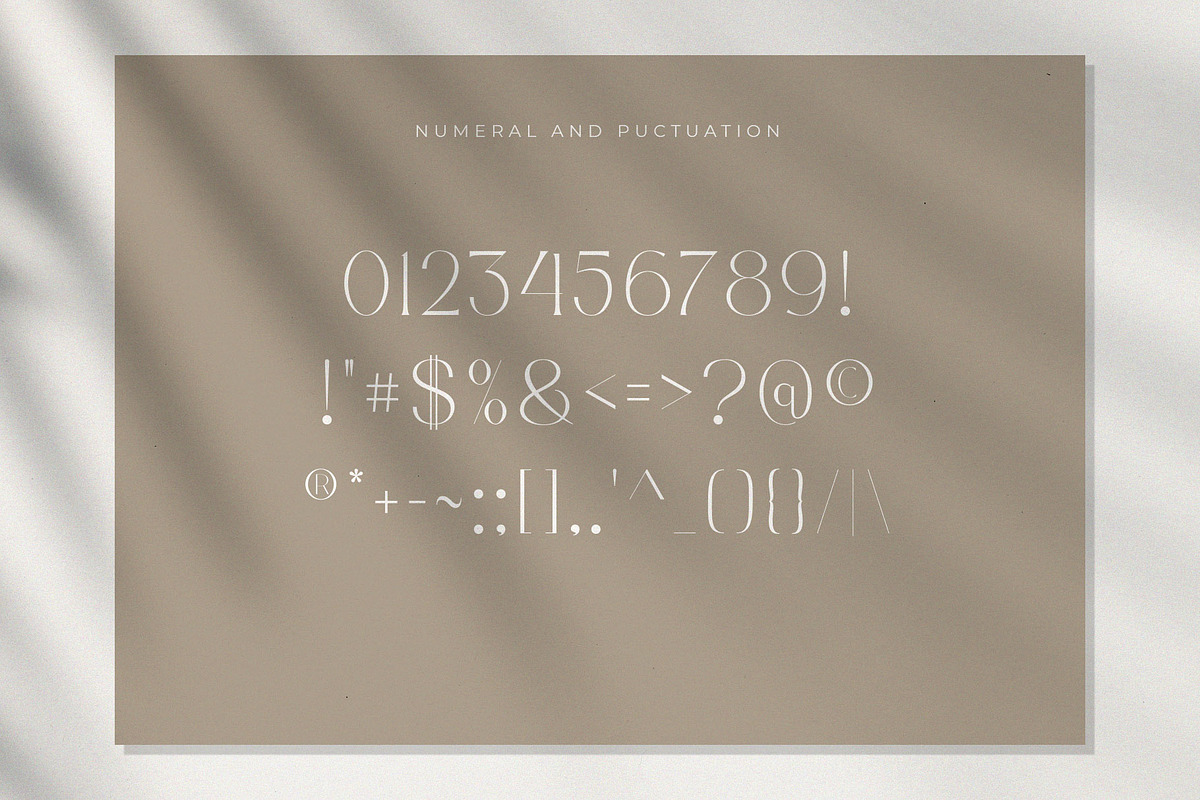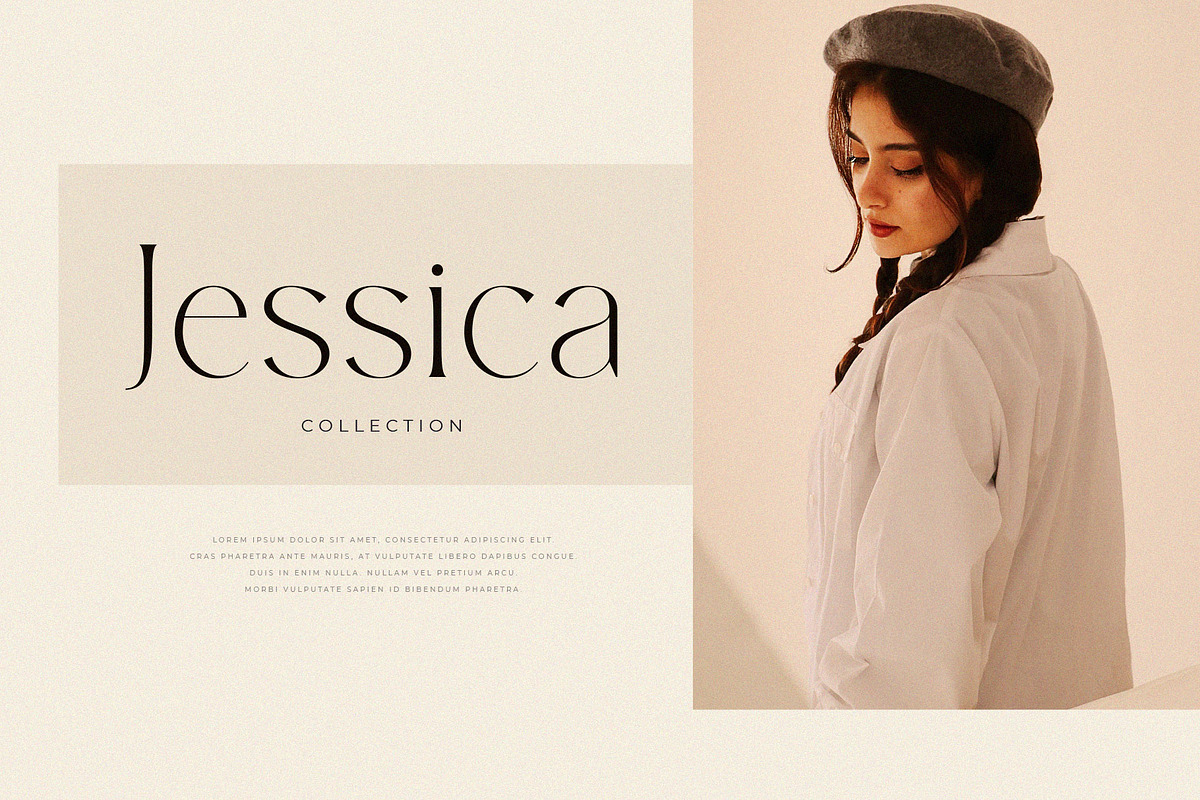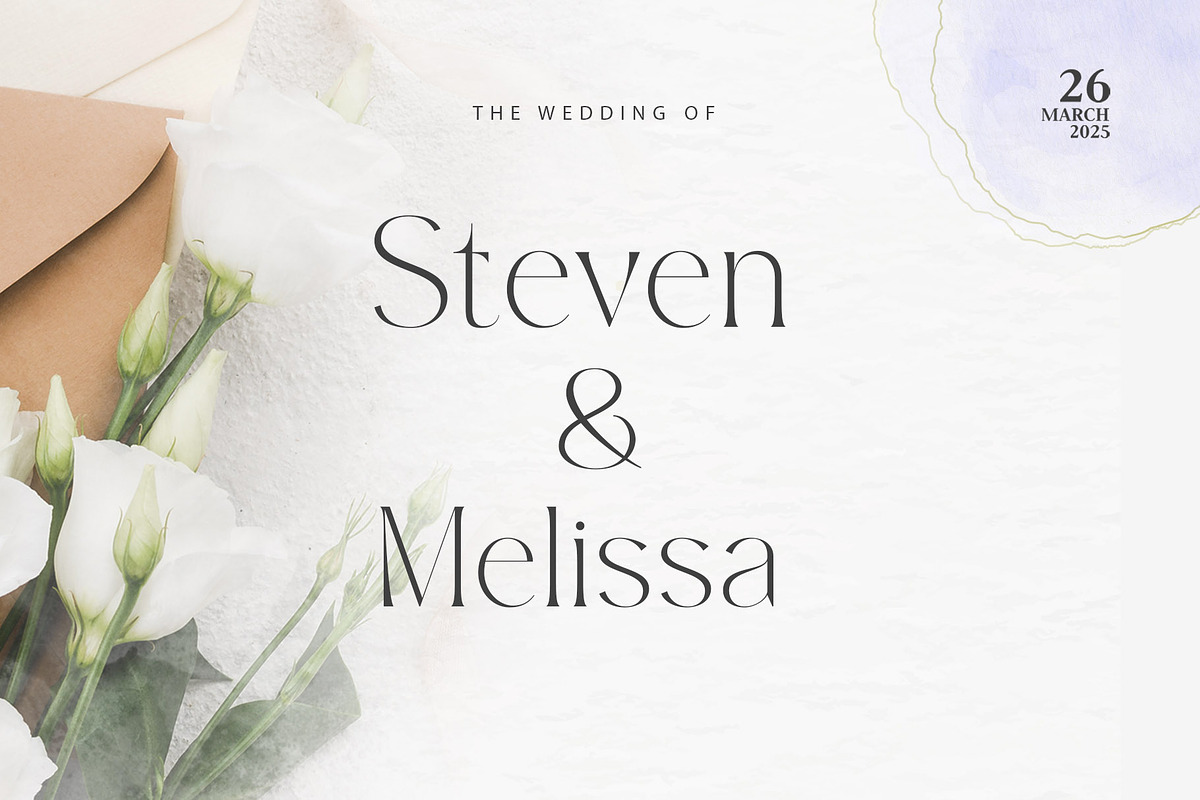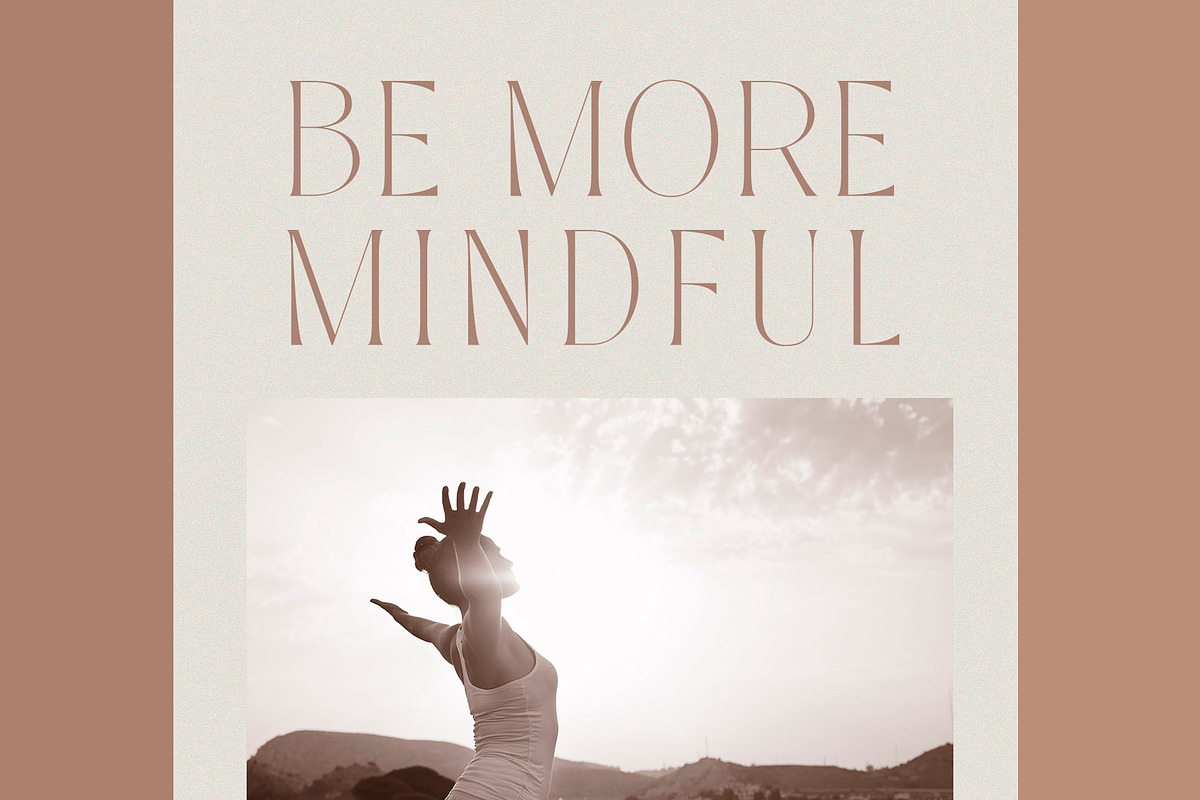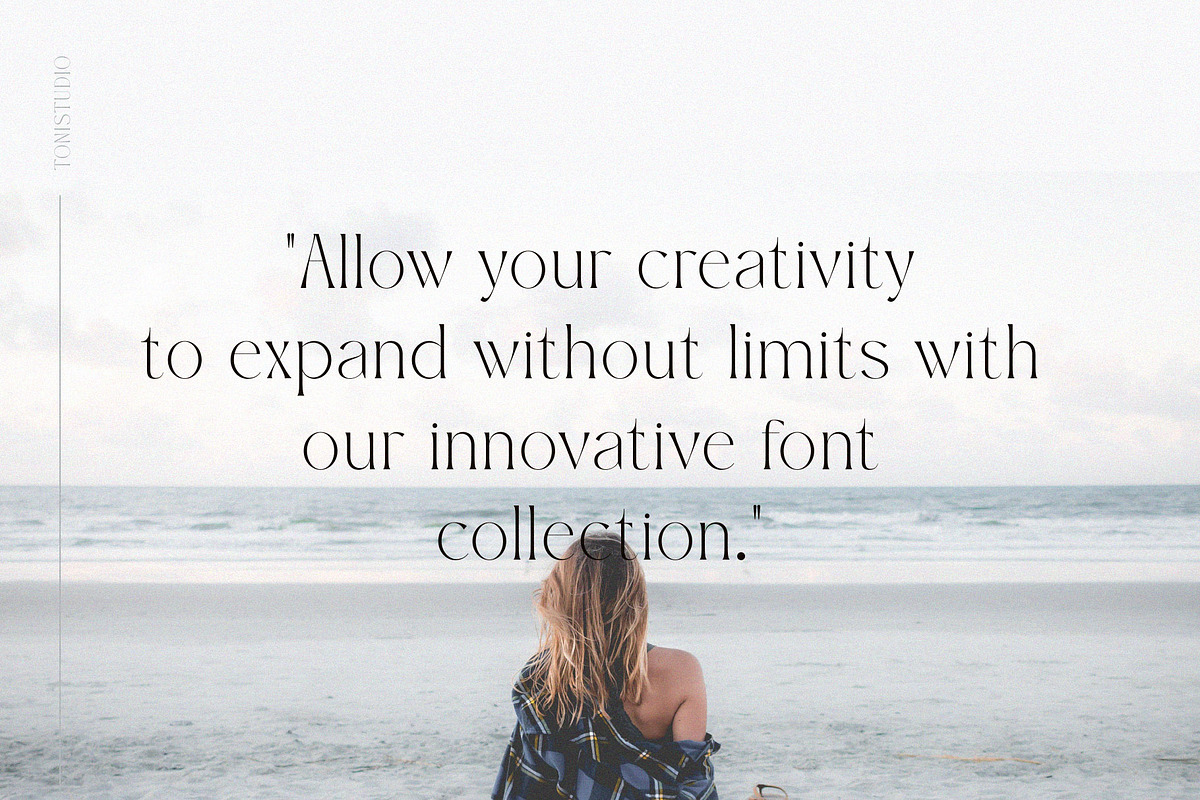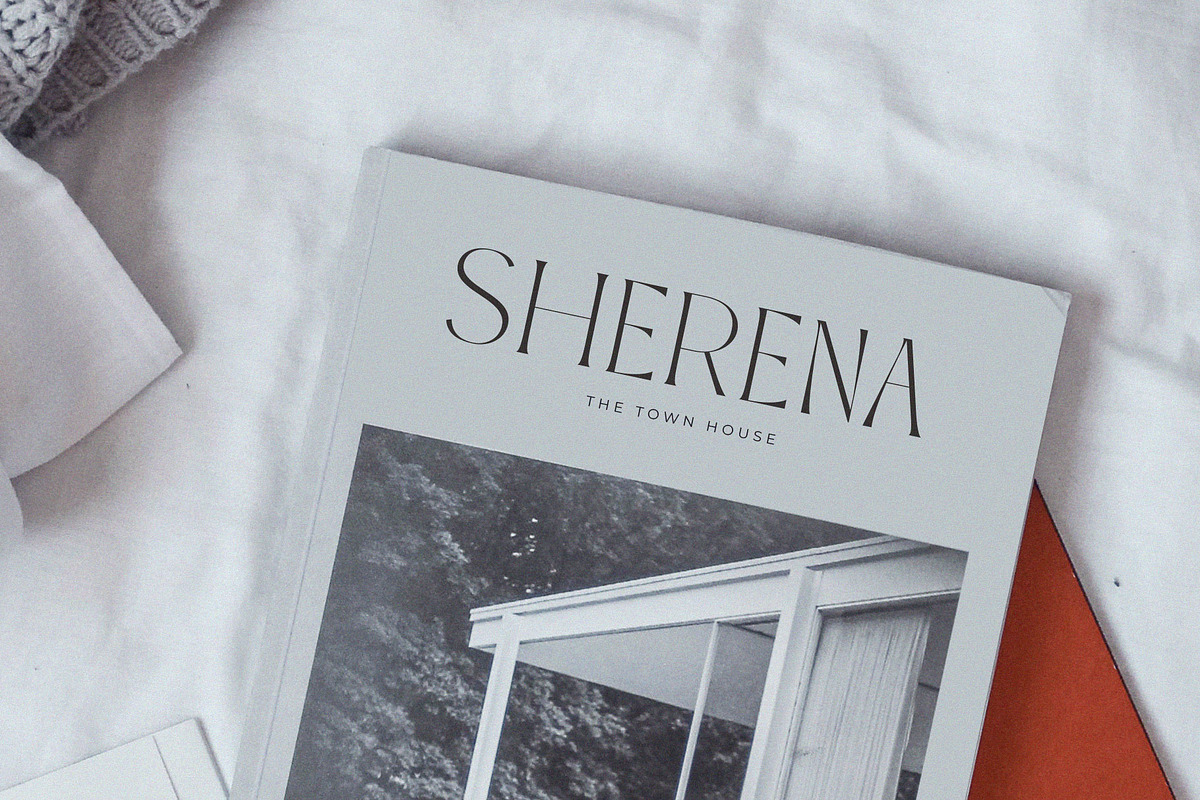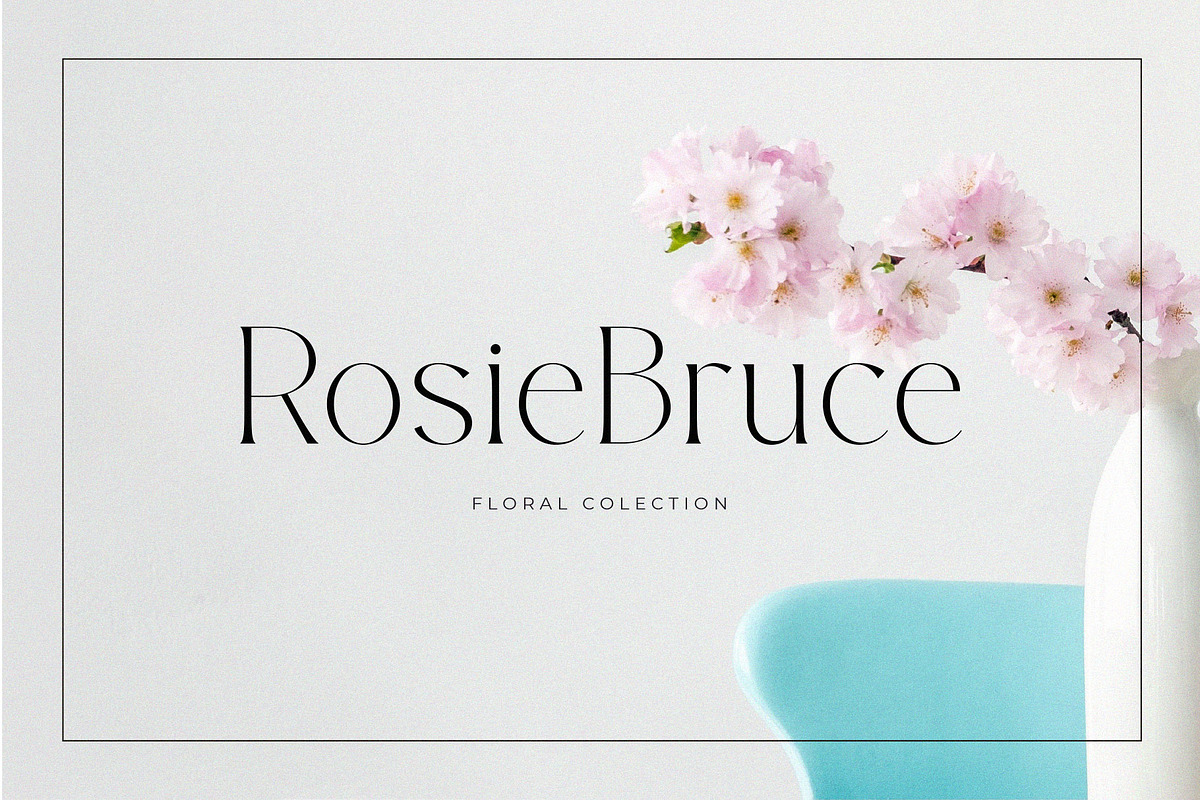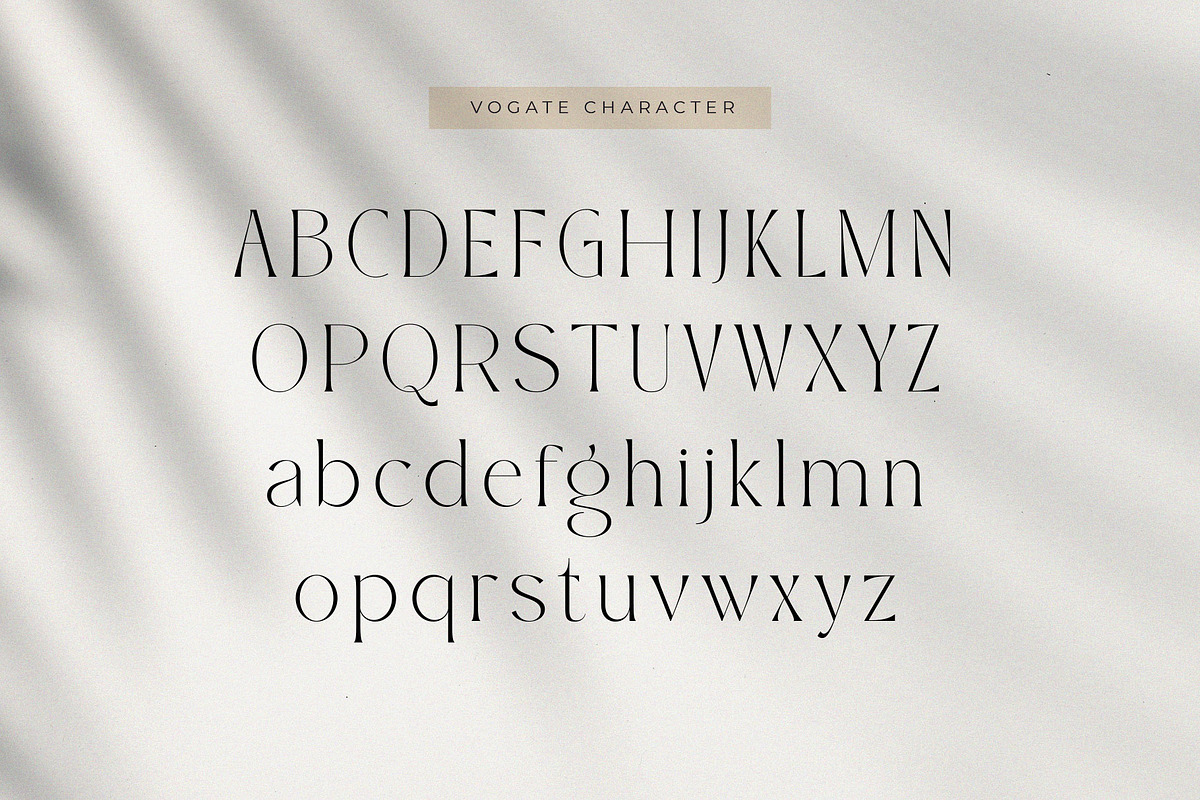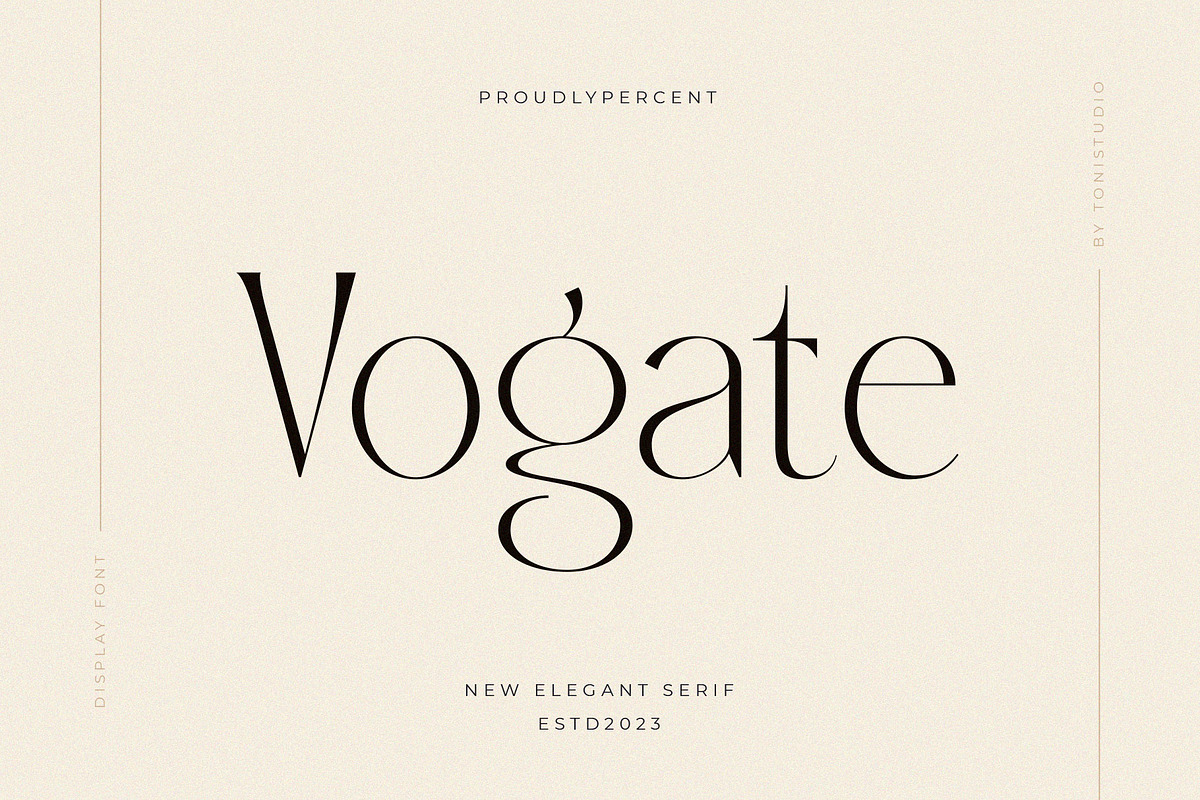
Vogate
Presenting "Vogate" - a stunning typeface that combines sleek and exotic characteristics. This typeface combines contemporary sophistication with timeless elegance, perfect for bringing a sense of luxury and refinement to their projects. Can be used for titles, posters, branding, packaging, presentations, logos, quotes, headlines, magazine titles, web layouts, advertisements, invitations, packaging designs, books and almost any creative design. Vogate is a great choice for projects that demand a contemporary yet timeless aesthetic.